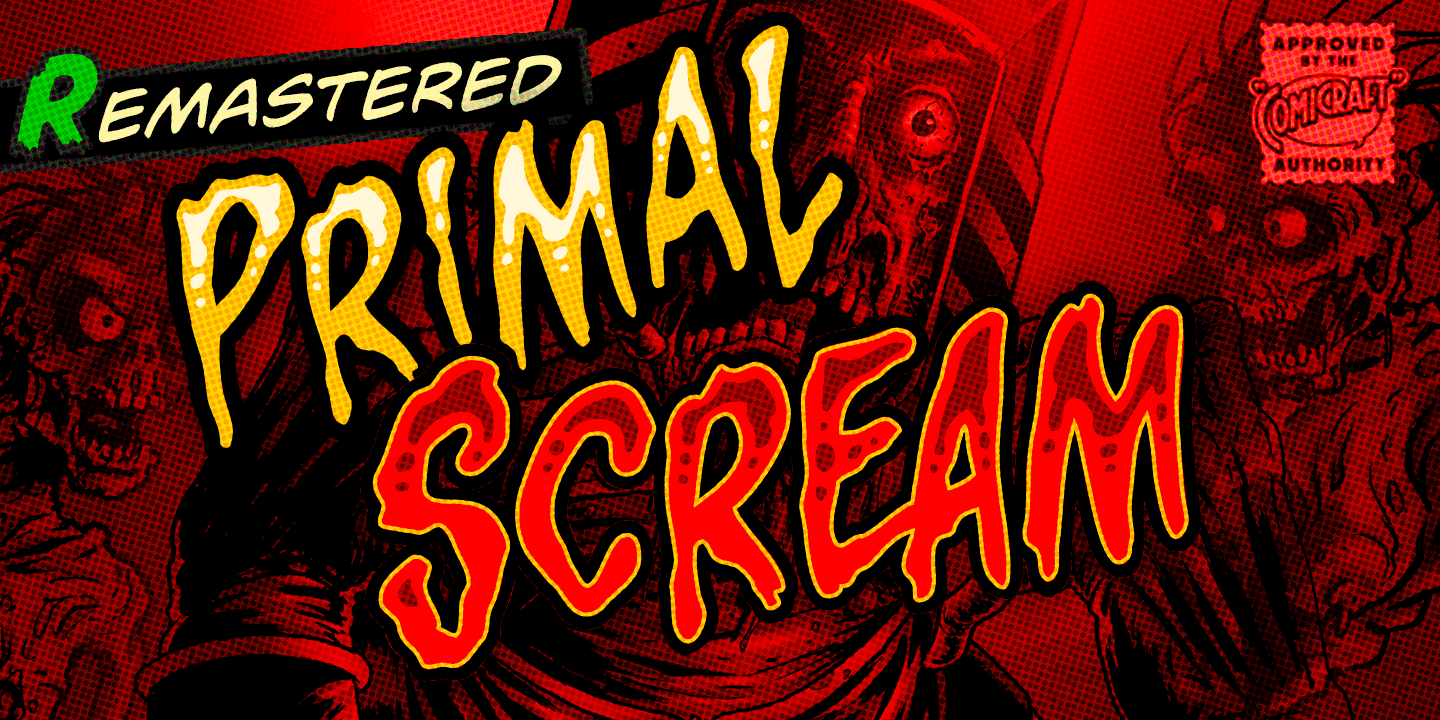
Primal Scream Font is perfect for heavy metal band logos, horror movie titles, extreme sports branding, underground music promotions, intense gaming graphics, aggressive advertising campaigns, raw punk rock posters, brutal fitness gym signage, violent action film credits, and hardcore entertainment venues. This fierce typeface excels in applications where raw intensity and primal energy need to be communicated with unbridled power and savage authenticity that captures the essence of unfiltered human emotion and primitive force.
What makes Primal Scream Font exciting is its extraordinary ability to channel pure primal energy through its wildly aggressive letterforms that seem to tear across the page with the raw force of untamed emotion and savage intensity. The font embodies the spirit of primitive rebellion and unrestrained power with its jagged construction and ferocious proportions that suggest the violent beauty of nature unleashed and the cathartic release of suppressed emotions. Its brutally crafted character details and savage personality create an atmosphere of intense liberation that resonates with audiences seeking authentic emotional release and primal connection to their deepest instincts.
The Primal Scream Font family typically includes Regular, Bold, and Black weights, each maintaining the signature aggressive characteristics and savage intensity. Some versions offer heavily distressed variants that simulate extreme wear, condensed styles for space-efficient terror, and alternative character sets with enhanced brutal elements. The family may also include outline treatments, shadow effects, and special distortion styles that amplify the primal aesthetic for maximum visual violence in extreme entertainment applications.
Whether you're creating extreme entertainment brands, hardcore music materials, or intense action graphics, Primal Scream Font Free Download delivers the savage power your most aggressive projects demand. Its primal character and brutal styling make it an essential tool for metal bands, extreme sports brands, and underground entertainers working in hardcore music, extreme entertainment, and aggressive marketing sectors where authentic savagery and primal intensity are fundamental to connecting with audiences who crave genuine emotional extremes and uncompromising authenticity.